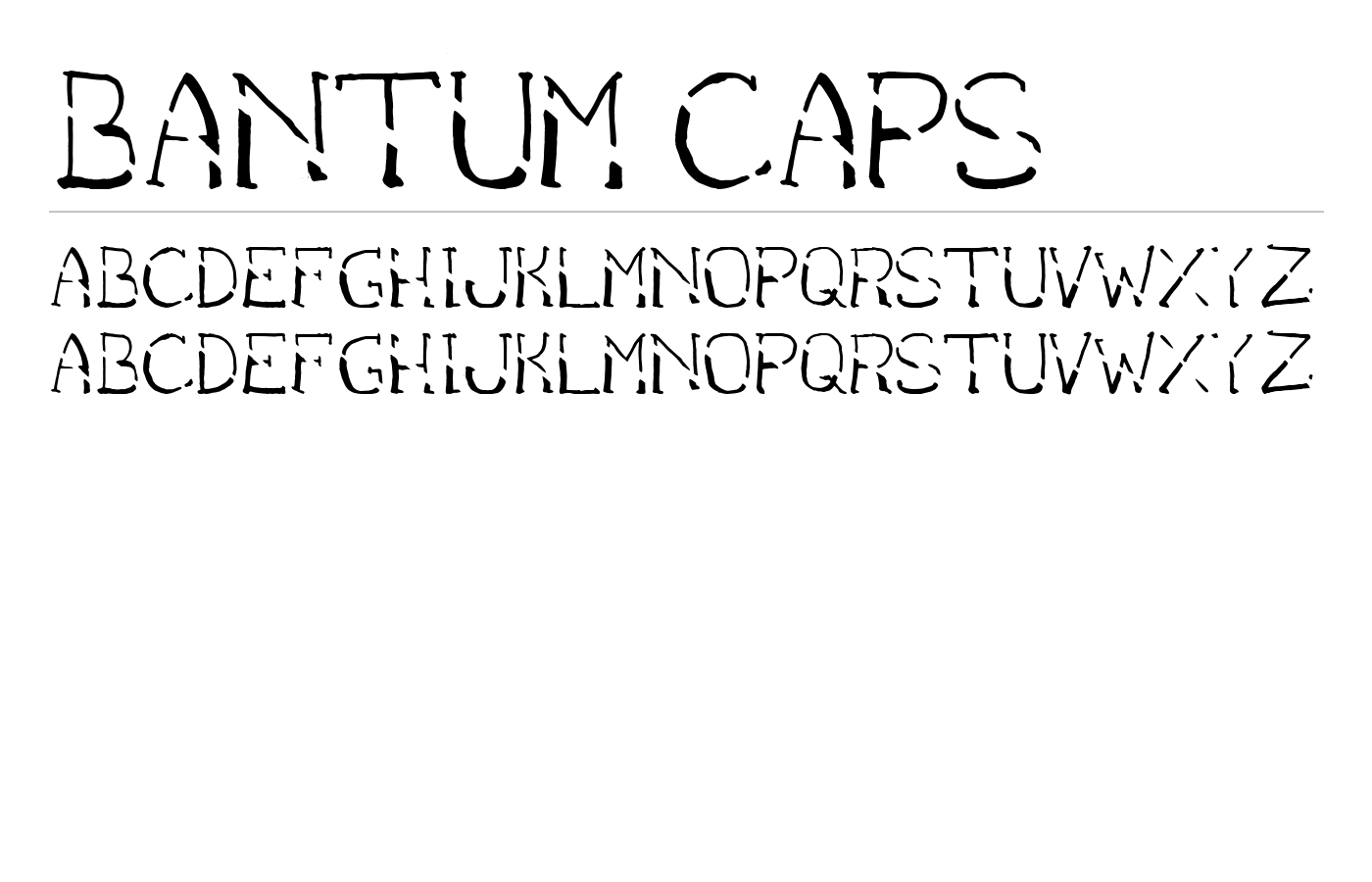
Bantum Caps is a distinctive sans serif font featuring a rough, hand-drawn texture with irregular strokes that give it an organic and slightly distressed look. Its all-uppercase letterforms combine a narrow width with varying stroke thicknesses to create a playful yet edgy personality, ideal for designs seeking a unique, artistic touch. This font works well for creative branding, posters, and packaging where a raw, handcrafted feel is desired.